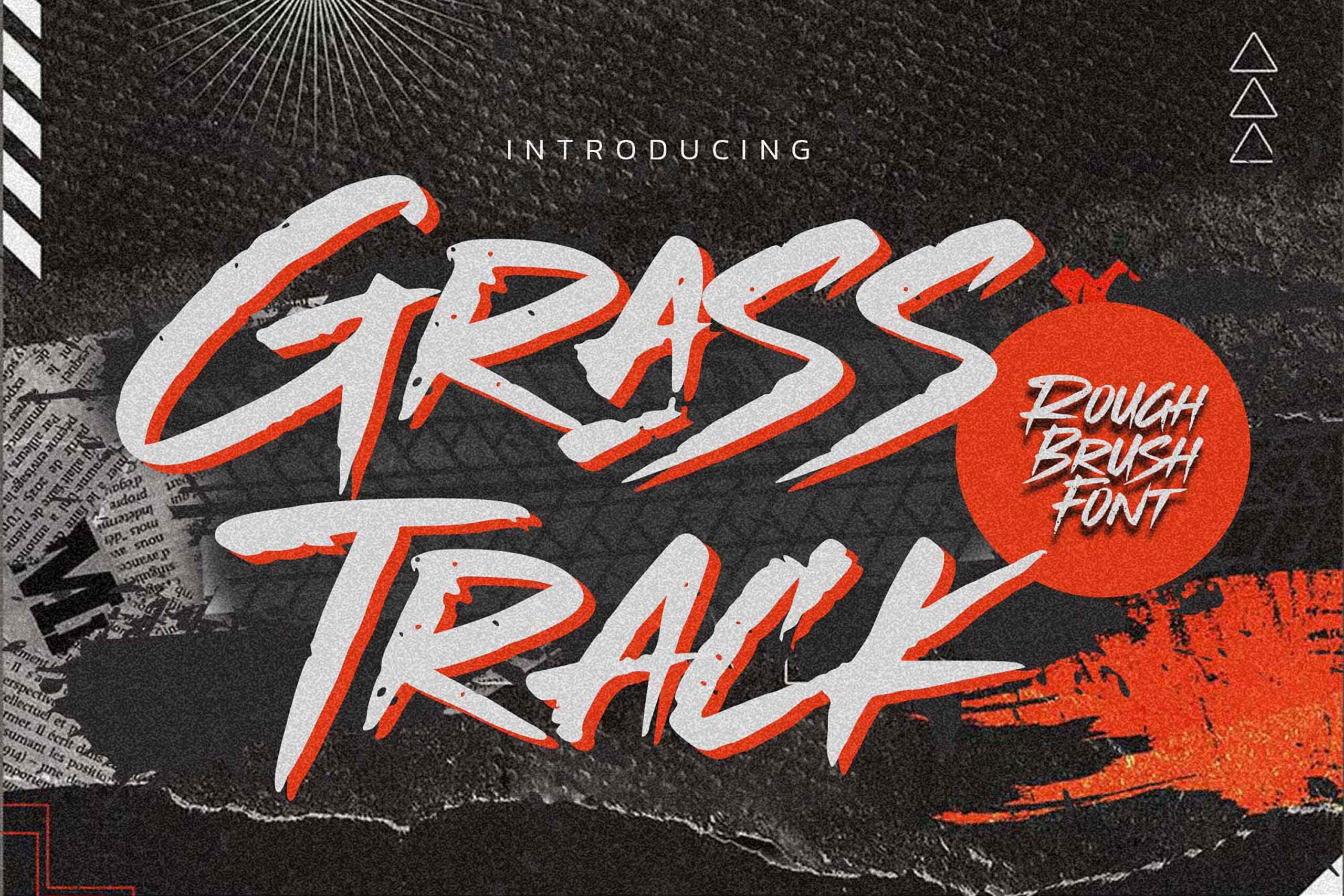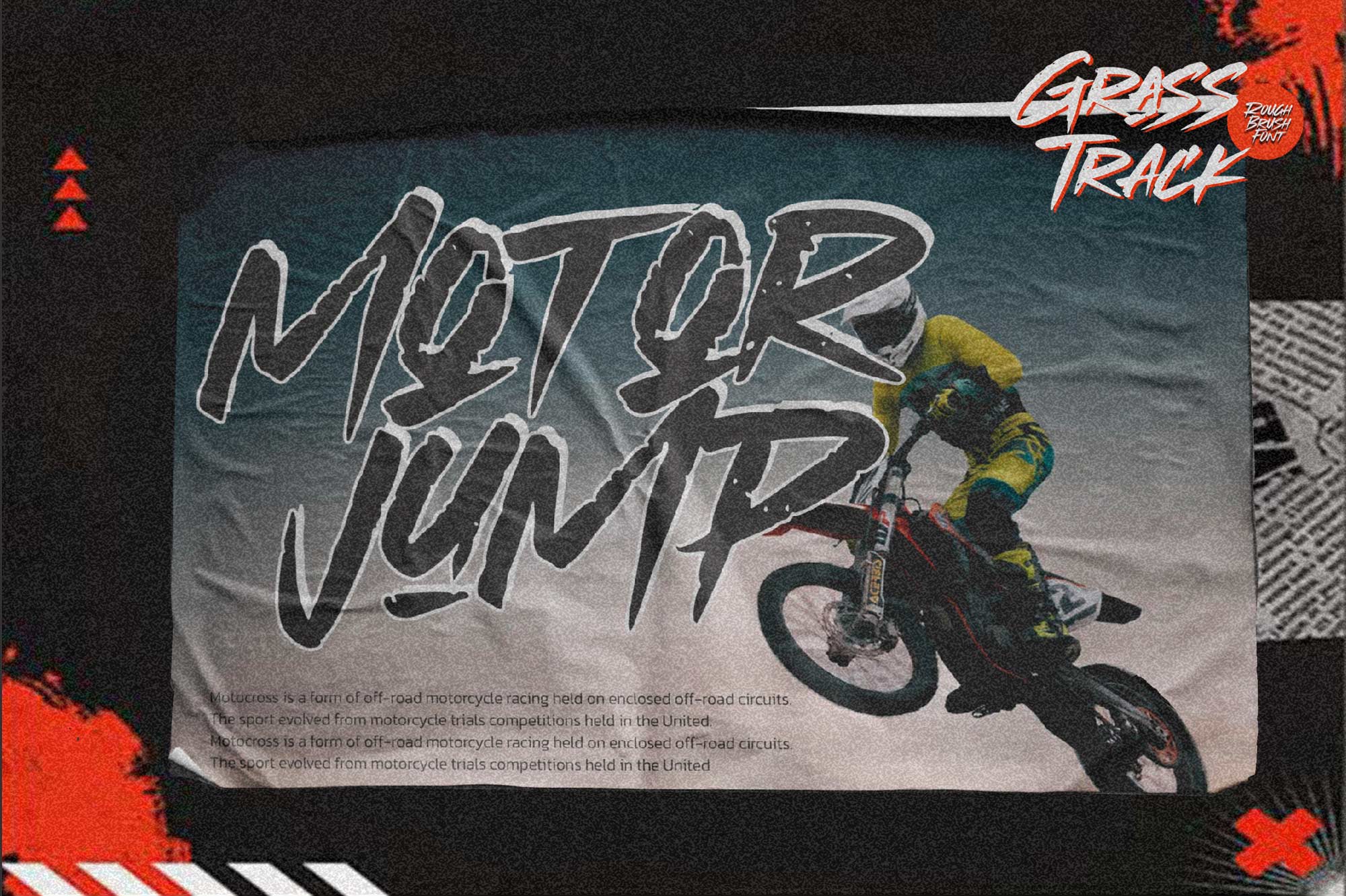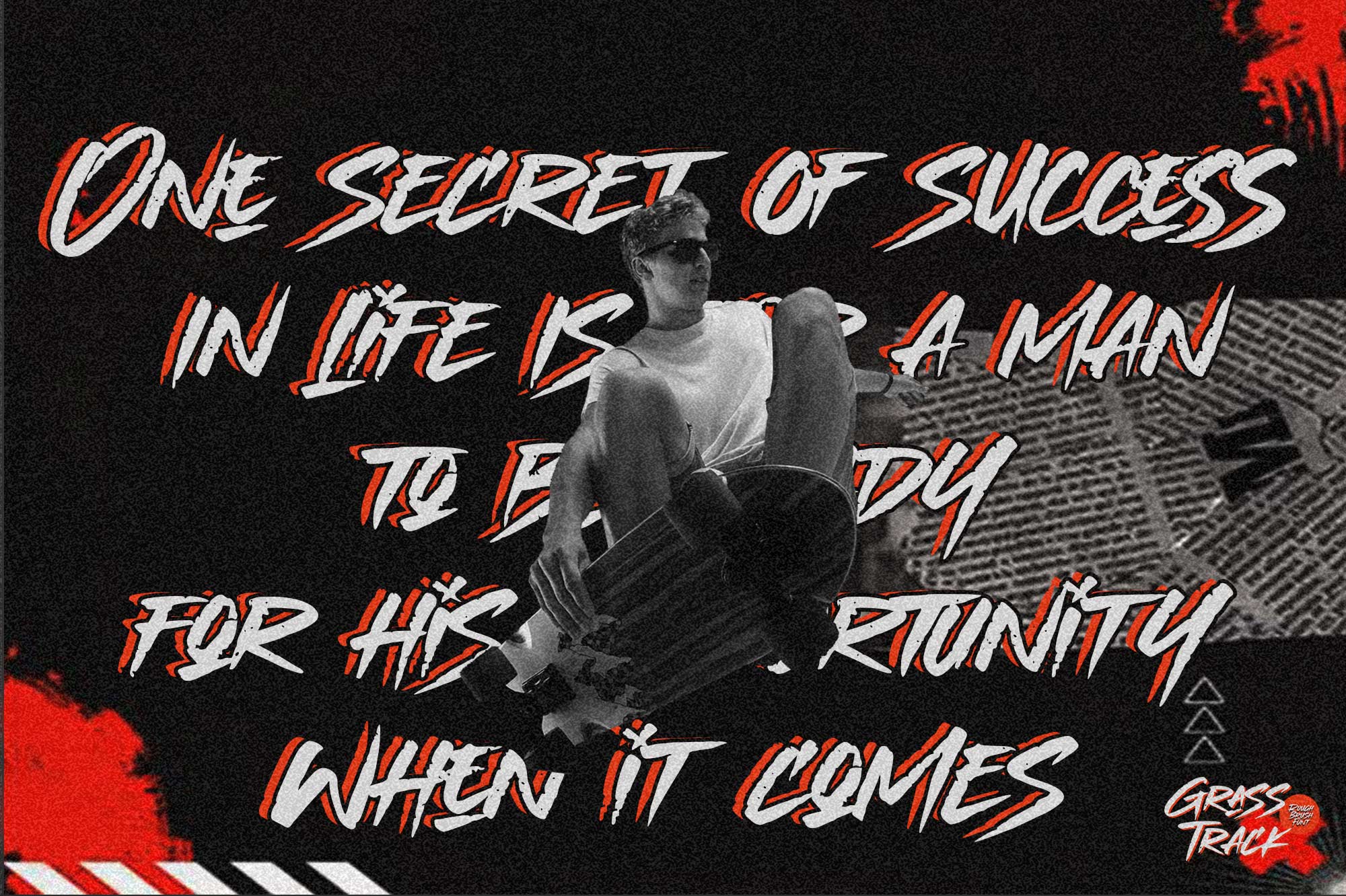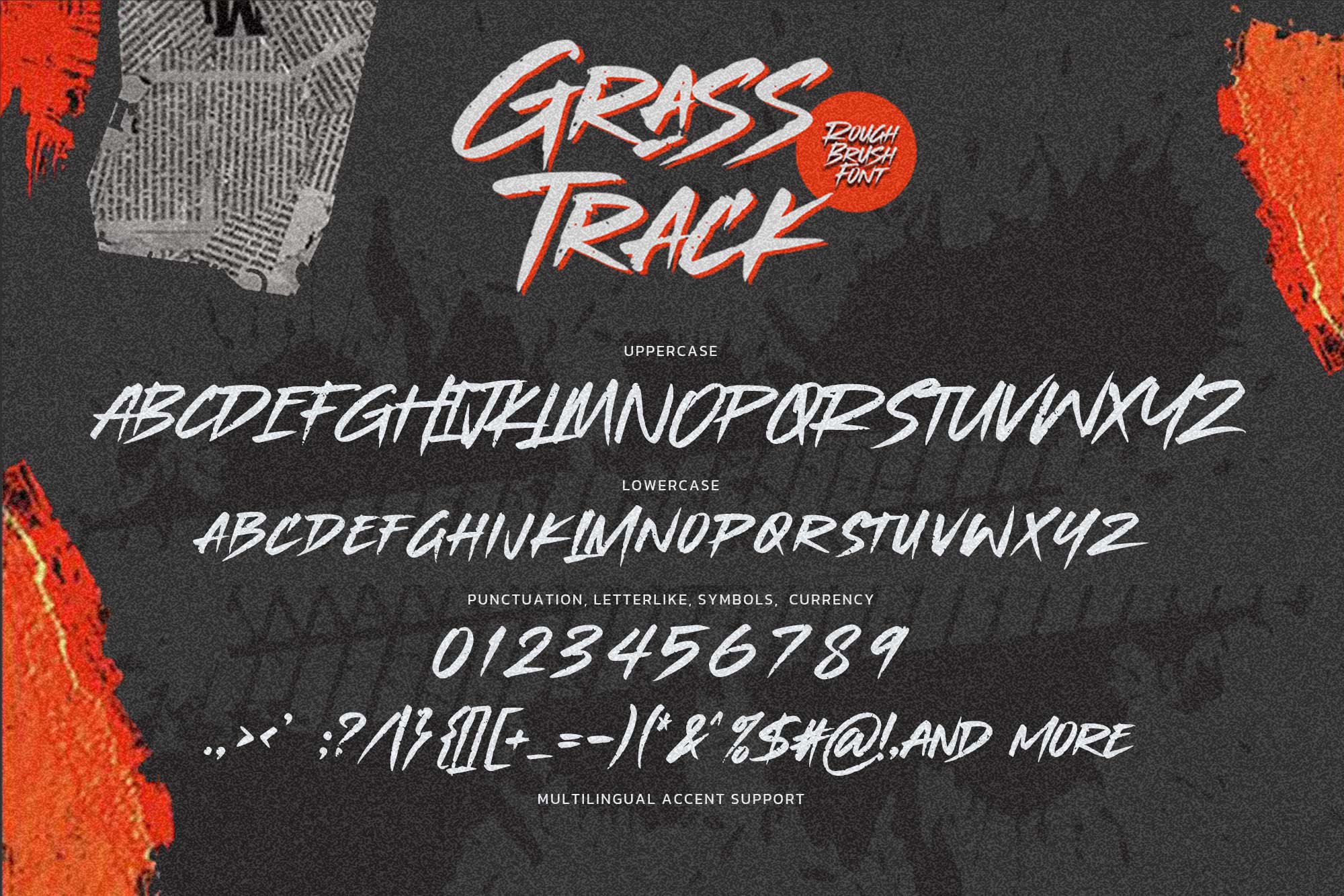
Grasstrack – Rough Brush Font, modern style and dramatic movement that is written casually and quickly.
The best for labels, poster, project designs look modern, authentic and fun. It’s perfect for labels, quotes, posters, DIY projects, branding, packaging, greeting cards, websites, photography overlays, signs, scrapbooking, tags and so much more! That is why Grasstrack has a textured, and unique characteristic more natural look. You can activate 29 Ligatures and 5 Alternate glyphs OpenType panel.